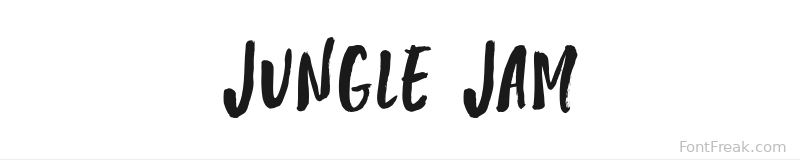
Jungle Jam
About Jungle Jam
Introducing the Jungle Jam font by BLKBK Fonts, a captivating display typeface that embodies a playful and adventurous spirit. This font falls into the decorative category, characterized by its bold, hand-drawn aesthetic. With a unique blend of uneven stroke weights and lively letterforms, Jungle Jam exudes an organic feel, reminiscent of the vibrant flora and fauna of a jungle. The letters display a moderate contrast, creating a dynamic visual appeal that makes it stand out in any design project.
Jungle Jam is particularly well-suited for a variety of creative applications. Its energetic vibe makes it an excellent choice for children's book covers, where it can capture the imagination of young readers. Additionally, this font works wonderfully for event flyers, especially for festivals or outdoor gatherings, adding a touch of whimsy. It can also enhance restaurant menus, particularly for eateries that focus on tropical or exotic cuisines. Graphic designers will appreciate its versatility for social media graphics, where a fun and engaging typeface can attract attention and foster engagement.
What sets the Jungle Jam font apart is its distinctive character and playful nature. It invites creativity and inspires a sense of adventure, making it an excellent addition to any designer’s toolkit. Experience the charm of the Jungle Jam font free download and let your projects flourish with its vibrant personality.